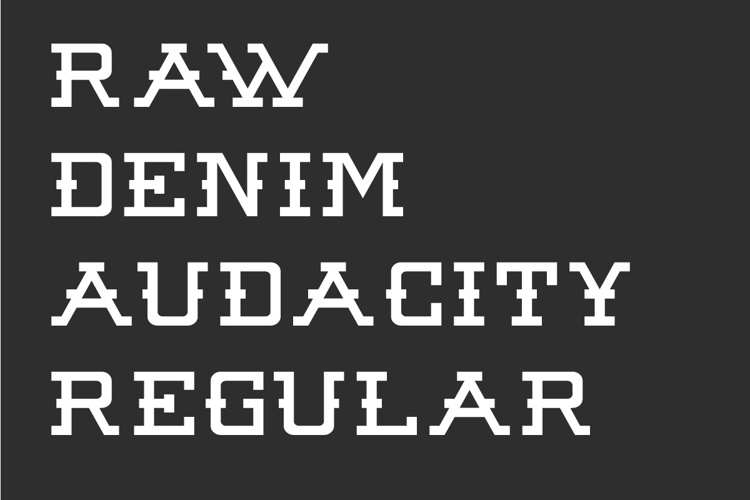
Raw Denim Audacity Font
Raw Denim Audacity is a re-imagining of an athletic serif font as a western slab serif. The typeface was inspired by modern street wear. The full version features kerning, numbers, extended European character set (without diacritics), and punctuation.
Version 1.2 sees a number of major changes design to improve the font and increase ease of use in multiple applications. Improvements have been made to a large number of glyphs, and the lowercase glyphs now contain smallcaps versions of the uppercase glyphset.